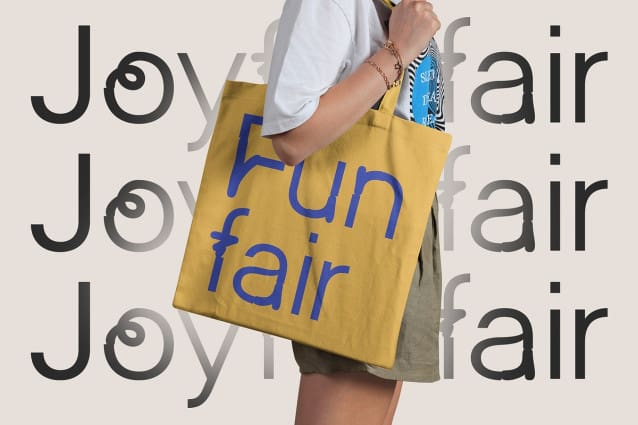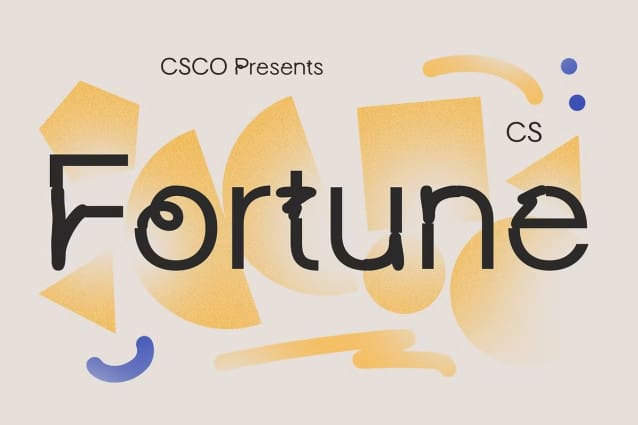
CS Fortune Font
CS Fortune Font is a modern display font with bold, energetic letterforms that create a funky, cute, and playful vibe. Its unique curves, varying proportions, and creative elements, such as bubbles and curved lines, make this font stand out in any design.
Bold and Colorful for Dynamic Visual Impact Featuring vibrant and unconventional letter shapes, CS Fortune exudes cheerfulness and joy, making it ideal for projects that seek to capture attention with lively, dynamic visuals. This font is perfect for music event posters, children’s product packaging, and other fun, creative projects.
Perfect for Playful and Creative Designs Whether for social media designs, branding, or promotional materials, CS Fortune delivers a fun and whimsical feel that adds personality to your work. Its bold and colorful design ensures your project leaves a lasting impression with its lively charm.
Versatile for a Variety of Design Applications With its playful character and funky appeal, CS Fortune is an excellent choice for designs that prioritize creativity and joy. This modern display font offers versatility across a range of design projects, enhancing visual appeal while maintaining a lighthearted tone.